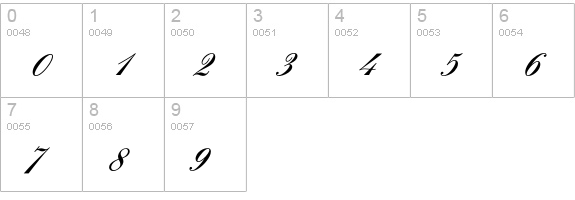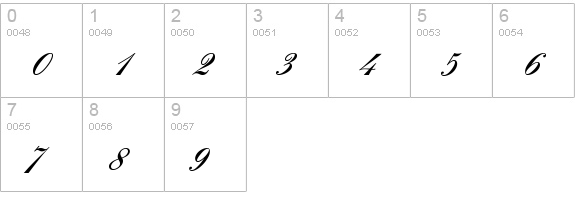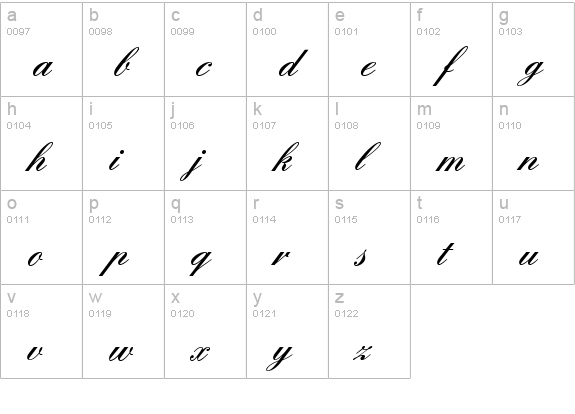
Englische Schreibschrift Medium is a balanced, medium-weight variant in the Englische typeface family \xE2\x80\x94 well suited to sub-headlines, navigation, and balanced editorial work.
Englische Schreibschrift Medium is a classic and elegant font that exudes sophistication and grace. With its flowing lines and traditional look, this typeface is perfect for adding a touch of timeless beauty to your projects. Whether you're designing invitations, creating branding materials, or crafting elegant signage, Englische Schreibschrift Medium is a versatile choice that will elevate your designs. The best part? This exquisite font is available for free download at FontsMarket.com. Simply visit the website and add Englische Schreibschrift Medium to your font collection with just a few clicks. Don't miss out on this opportunity to enhance your designs with this stunning typeface. Download Englische Schreibschrift Medium today and let your creativity shine!